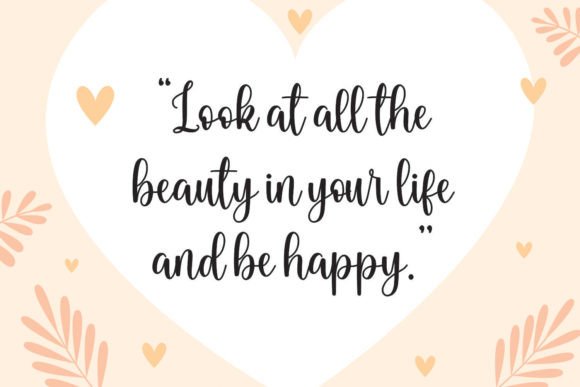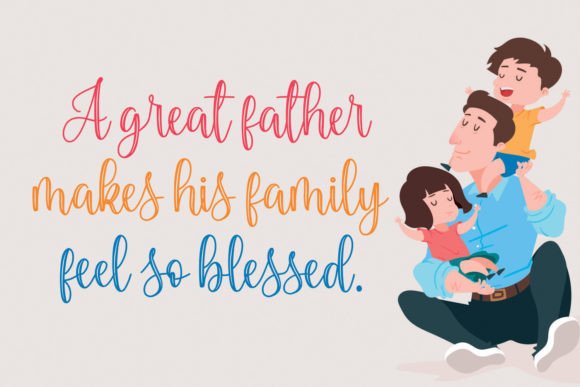
Daddy Font
Introducing “Daddy”, a beautiful script handwritten font that will add a personal touch to any design project.
Its unique style captures the essence of handwritten text while maintaining legibility and elegance.
Perfect for logos, wedding invitations, greeting cards, and more. With its fluid lines and organic curves.
“Daddy” will bring a touch of warmth and personality to your designs. Don’t miss out on the opportunity to make your designs stand out with this one-of-a-kind font.